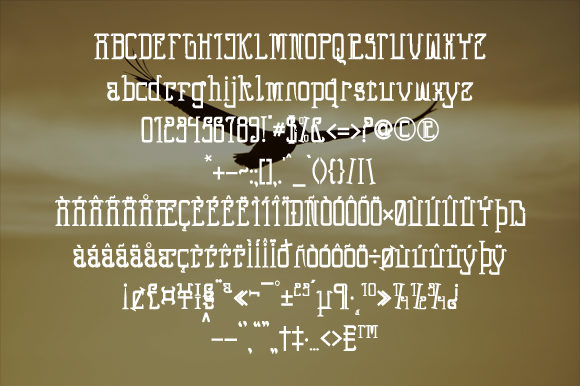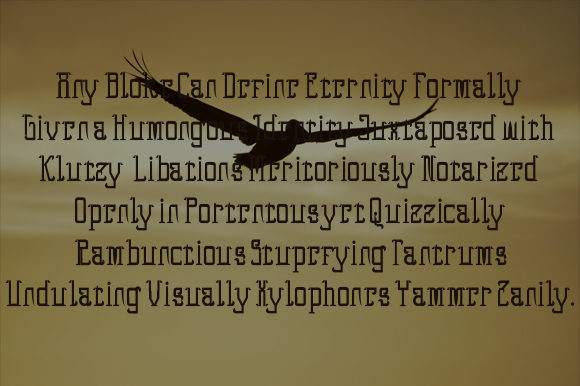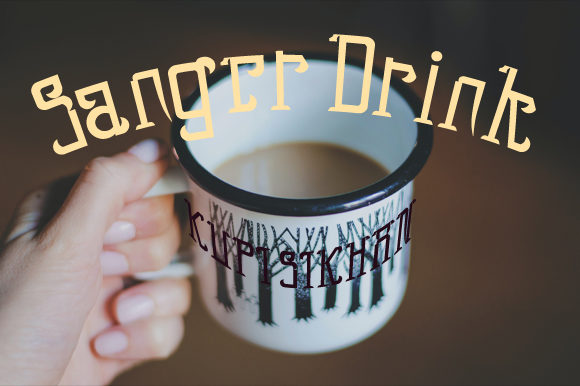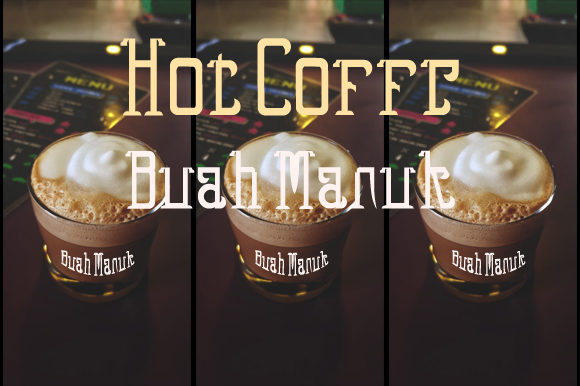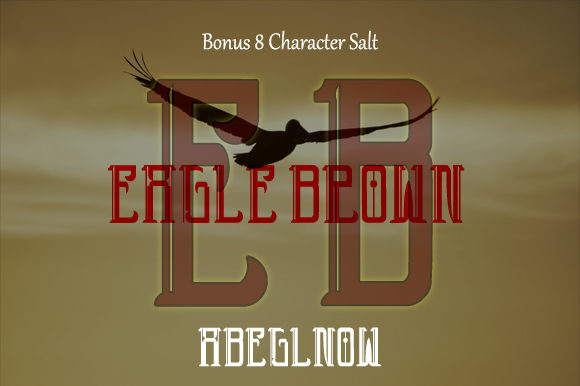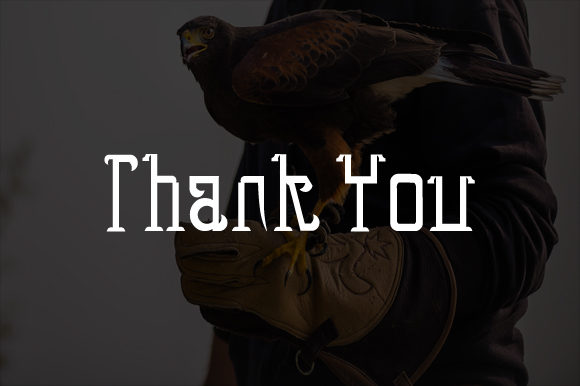
The Retro Charm of Eagle Brown 1 Font: A Designer’s Delight
I’ll never forget the time I was working on a vintage-themed project for a client, and I just couldn’t find the right font to capture that nostalgic feel. I scoured the internet, tried out dozens of fonts, but nothing seemed quite right. That was until I stumbled upon Eagle Brown 1 Font. It was like a breath of fresh air – playful, nostalgic, and full of character. In this article, I’ll share my experience with Eagle Brown 1 Font, its features, and how to make the most of it in your designs.
A Personal Review: What I Love and What to Watch Out For
- ✅ Unique vintage aesthetic that’s perfect for retro-themed designs
- ✅ Extensive OpenType features, including glyphs and stylistic alternates
- ✅ Works beautifully for display text, headings, and titles
- ⚠️ May not be the best choice for body text or long paragraphs
- ⚠️ Some characters may not work well in all contexts (e.g., @ symbol)
The Story Behind Eagle Brown 1 Font
Eagle Brown 1 Font was designed with the goal of capturing the essence of vintage design. The font’s creator drew inspiration from classic retro typography, with a focus on playfulness and nostalgia. The result is a font that’s perfect for adding a touch of retro charm to any design.
| What is Eagle Brown 1 Font best used for? | Eagle Brown 1 Font is perfect for display text, headings, and titles in retro-themed designs. |
| Is Eagle Brown 1 Font suitable for body text? | While Eagle Brown 1 Font is highly legible, it may not be the best choice for body text or long paragraphs. |
| Does Eagle Brown 1 Font come with OpenType features? | Yes, Eagle Brown 1 Font includes extensive OpenType features, including glyphs and stylistic alternates. |